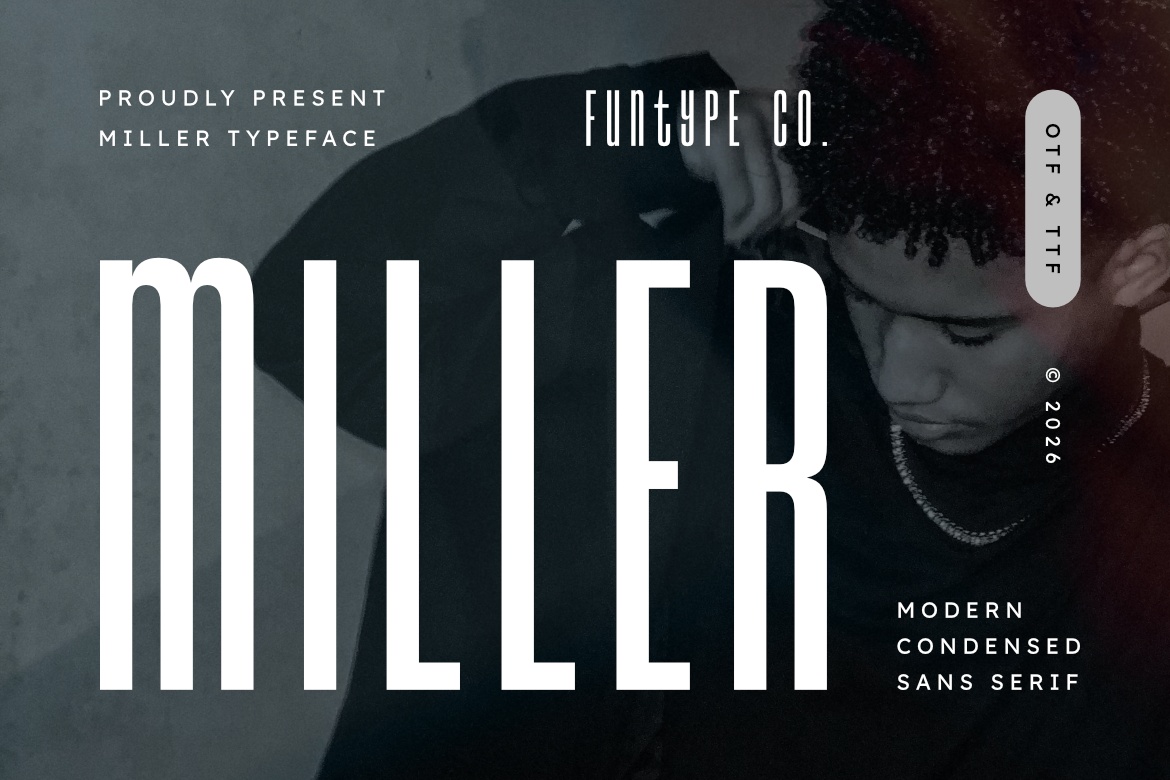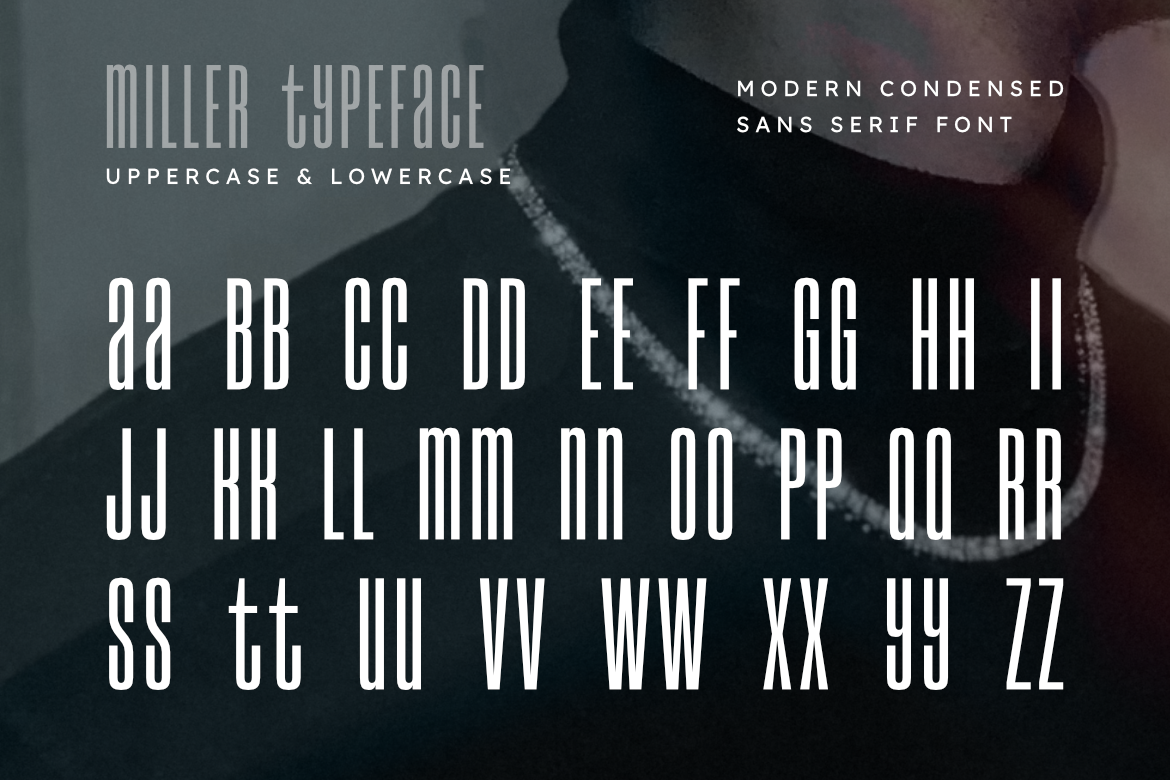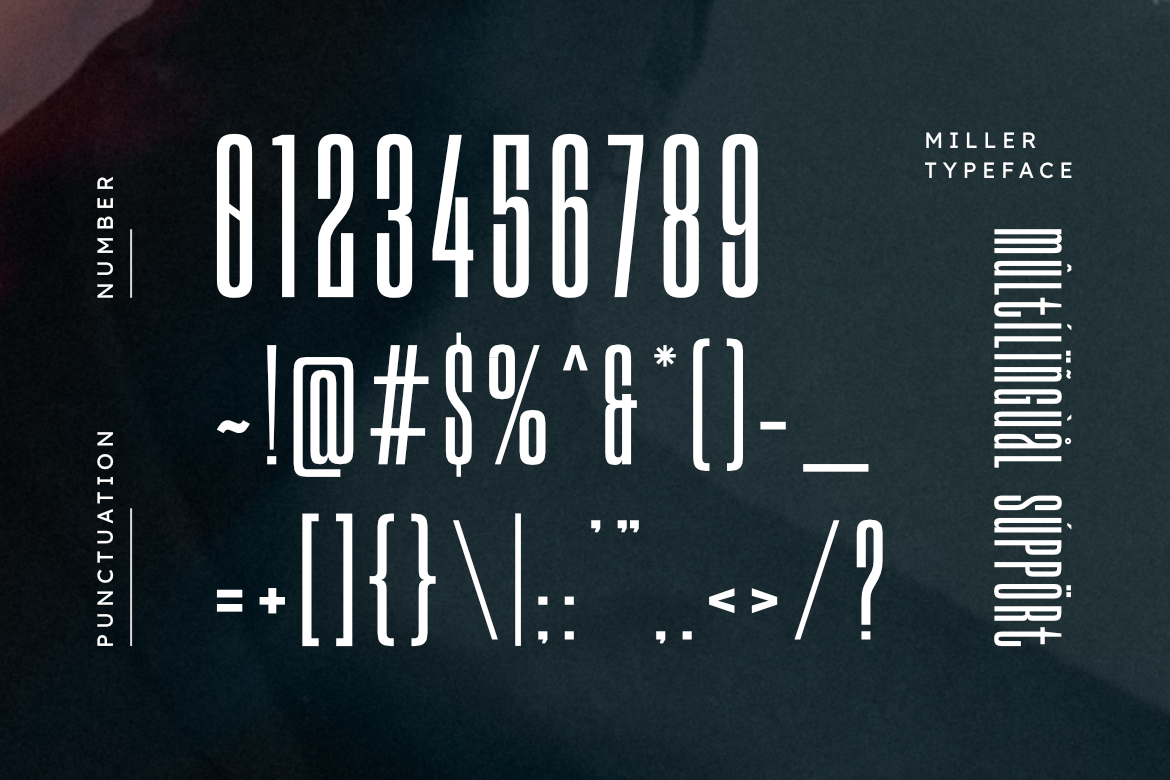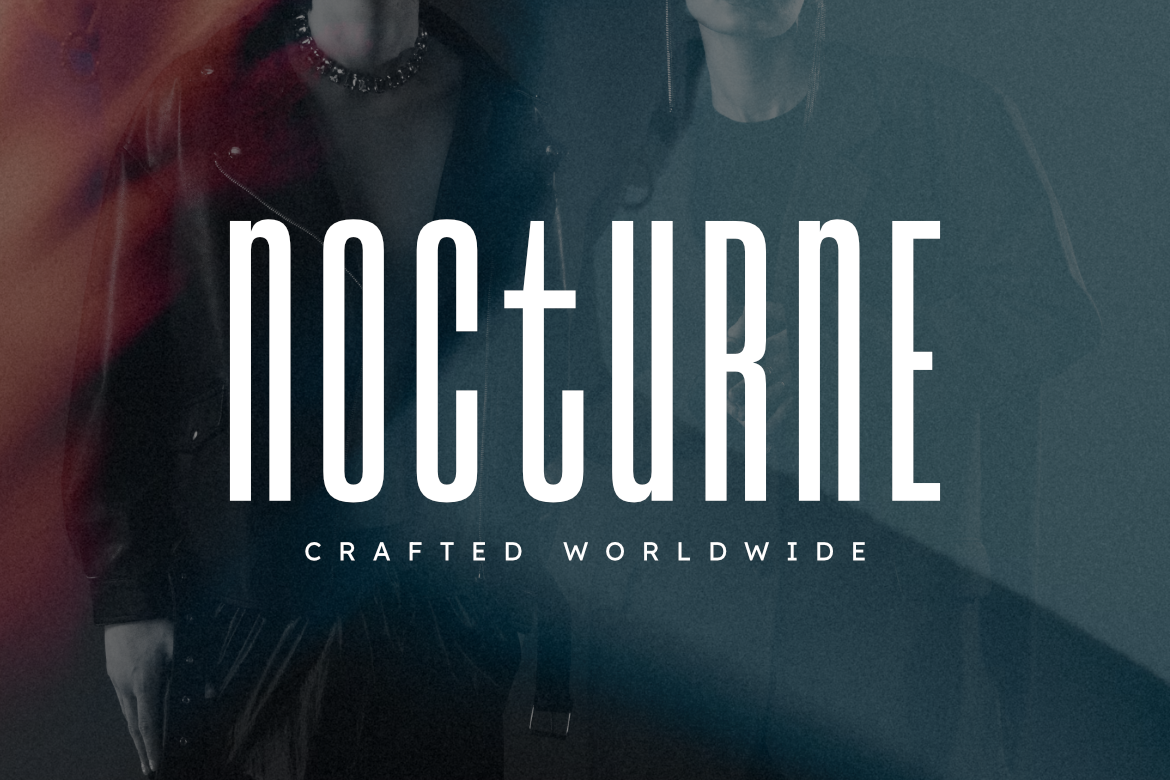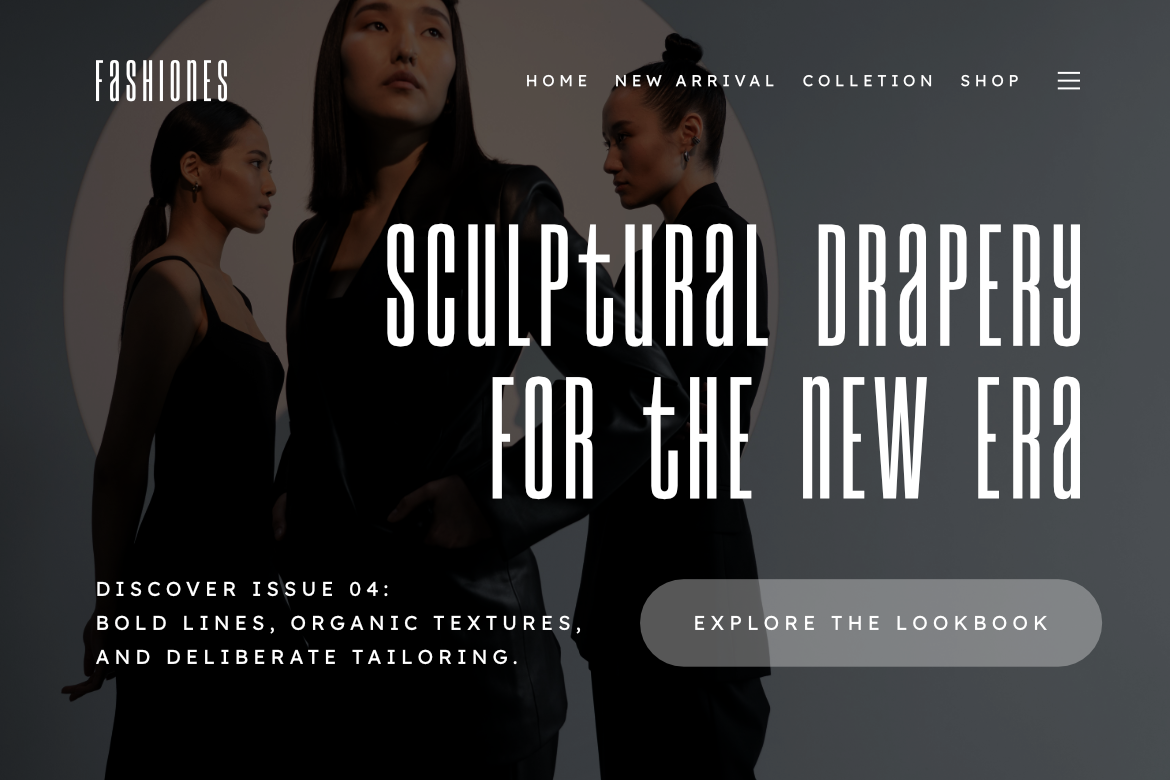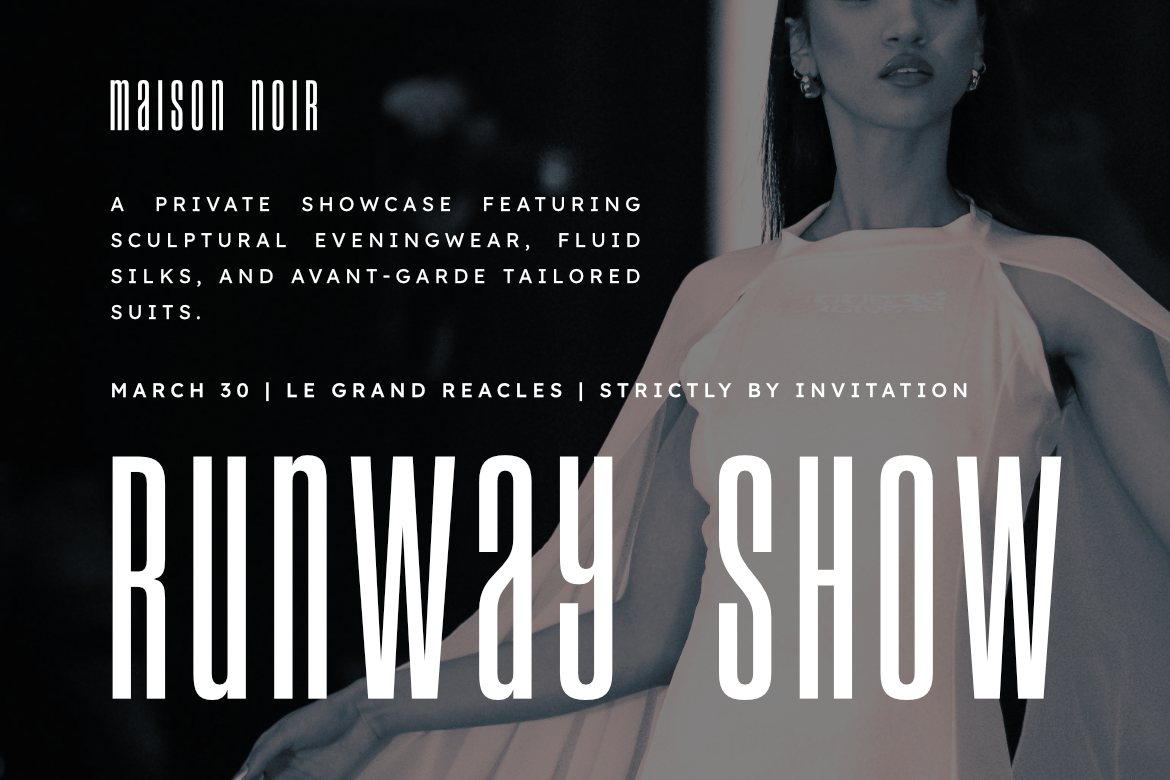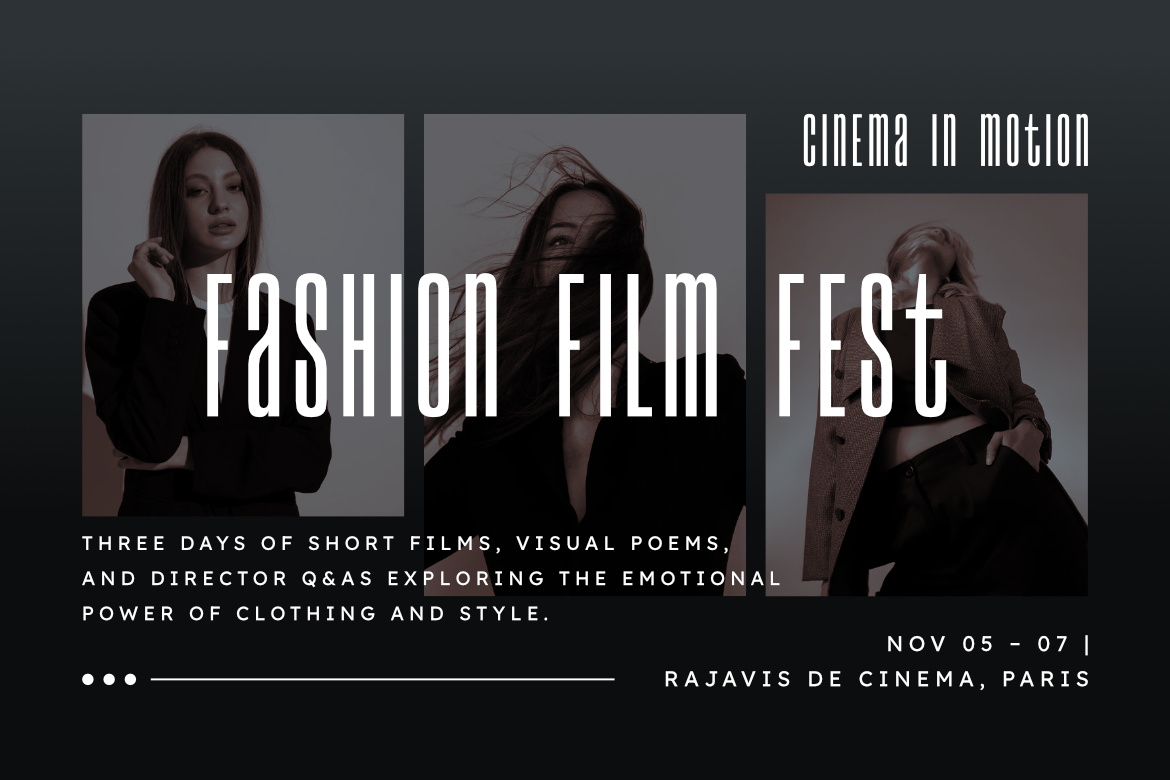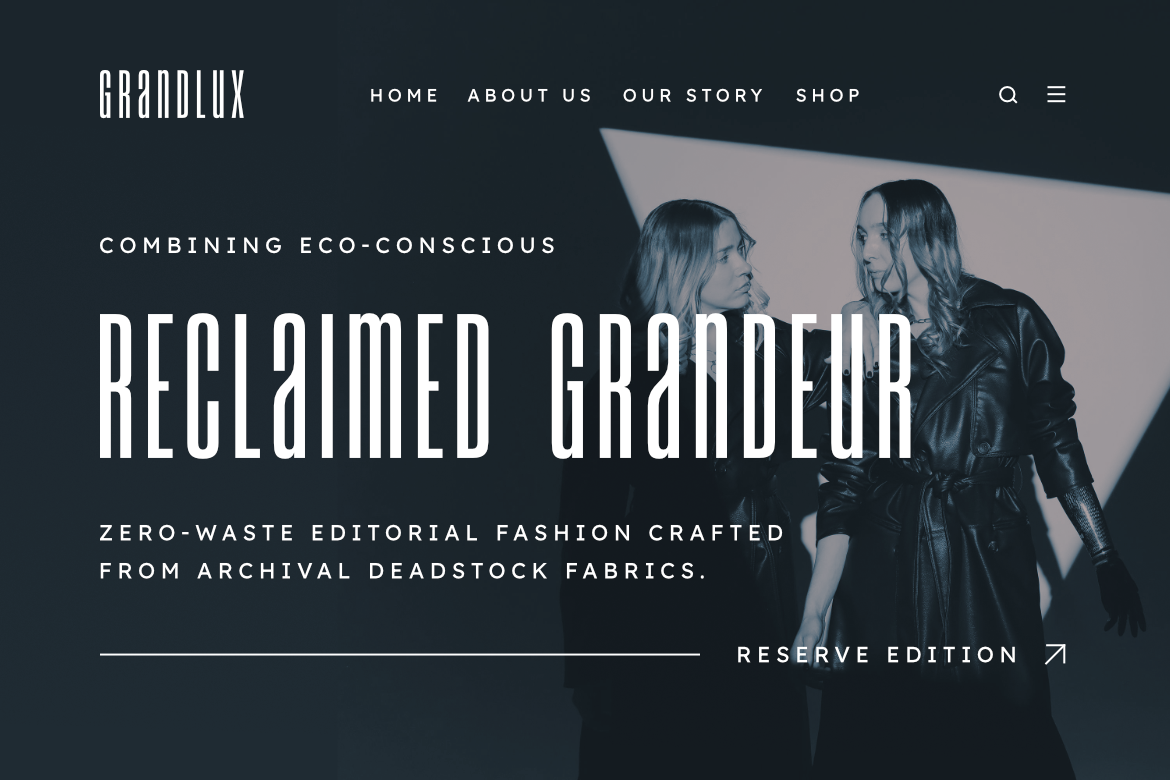
Miller is a sleek, ultra-tall, and modern condensed sans serif font, engineered to bring a commanding presence, space-saving geometric precision, and a sophisticated display aesthetic to contemporary graphic layouts. Featuring an elongated vertical profile, refined slim stems, and a subtle blend of rounded and sharp corners, Miller introduces a high-concept magazine editorial identity, bold corporate branding, architectural portfolio layout, and prominent digital media presentation designed to claim absolute visual focus.
This font family is the ultimate choice for creative directors, publication designers, and brand strategists looking to implement an authoritative typography identity for major text hierarchies. Whether you are developing bold corporate logotypes, luxury product packaging, high-fashion editorial headlines, cinematic movie title sequences, event posters, or prominent digital web banners, Miller stands out with supreme legibility and commanding structural elegance.
• Modern Condensed Display Structure: Optimized with an ultra-narrow horizontal footprint and tall vertical proportions for high-impact title compositions.
• Refined Slim Geometry: Elongated linear strokes accented with clean geometric cuts crafted to secure instant audience attention.
• Multilingual Support: Fully loaded and prepared for cross-platform international marketing campaigns.
• Urban & Architectural Aesthetic: Sleek vertical stems balanced with clean, high-contrast proportions, perfect for cutting-edge publications, modern art galleries, and digital branding.
Best Used For: High-end editorial magazine layout design, corporate presentation titles, luxury beverage packaging labels, cinematic movie title sequences, gallery exhibition posters, advertising flyers, and prominent online media splash banners.